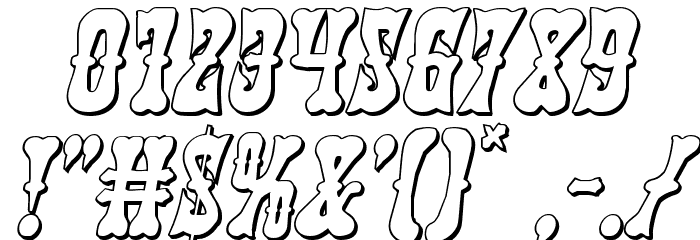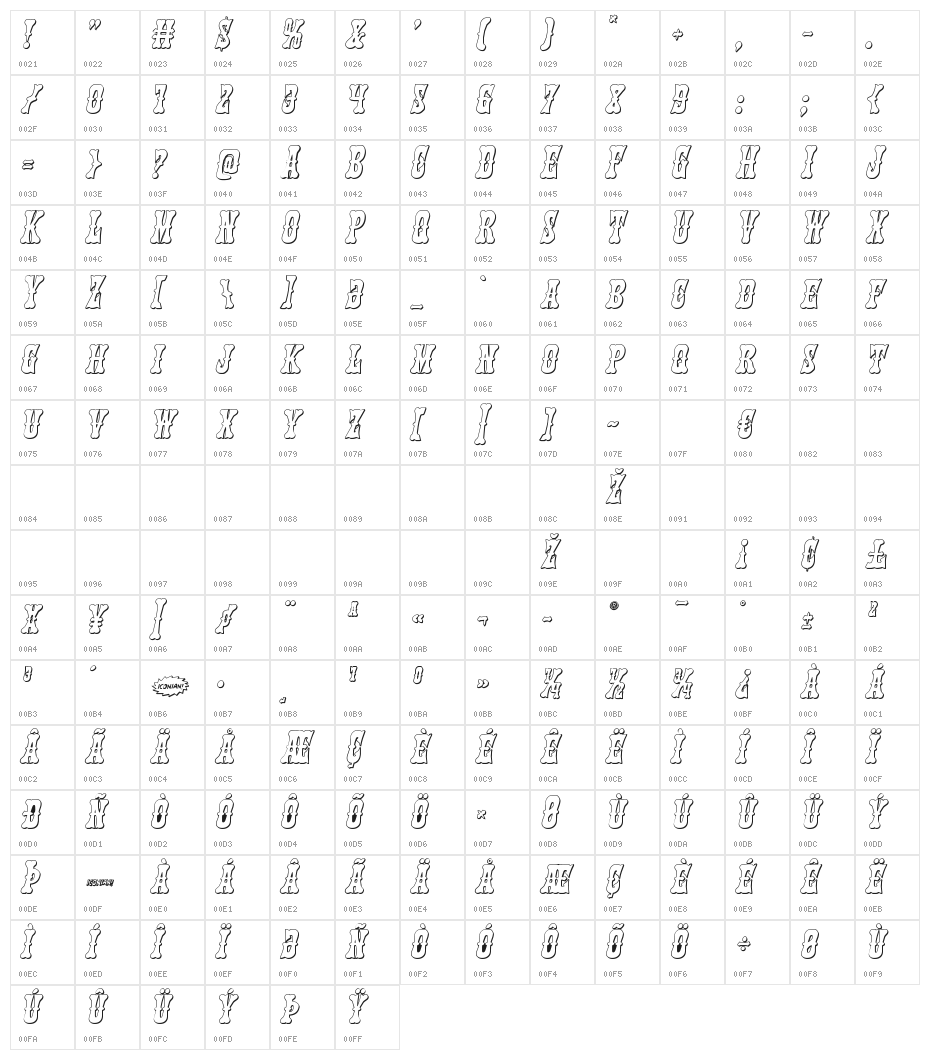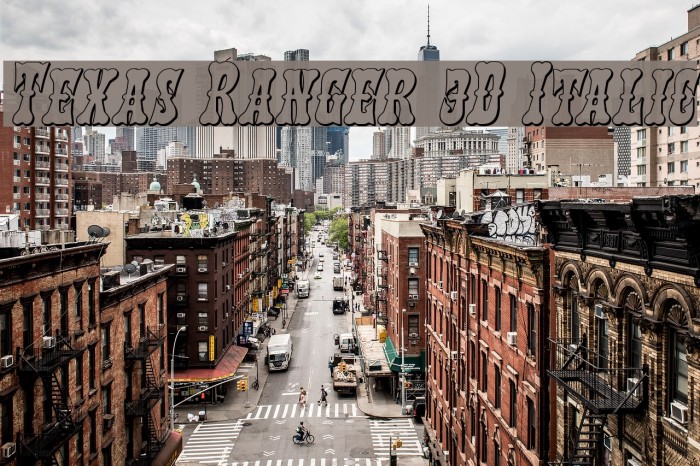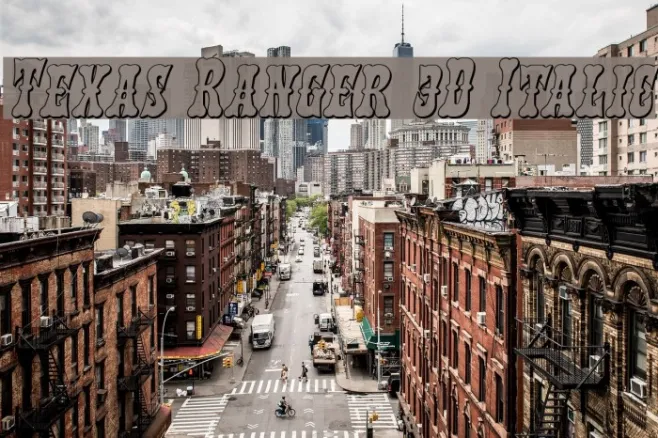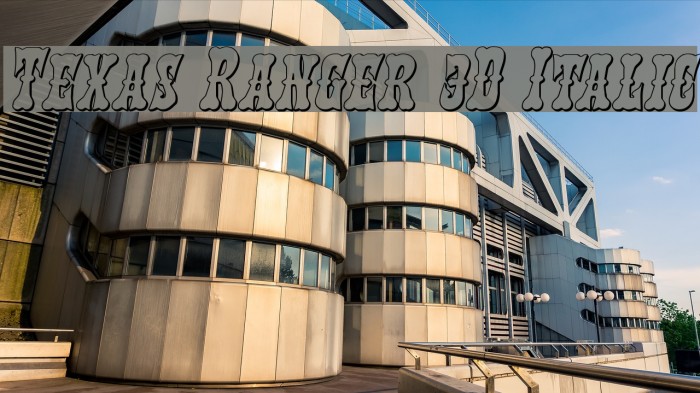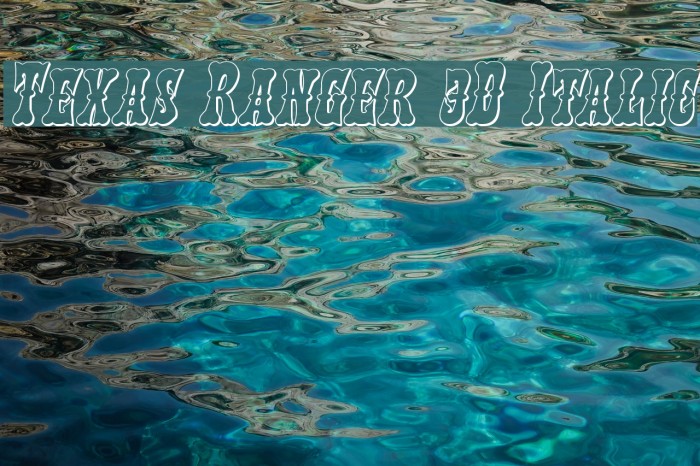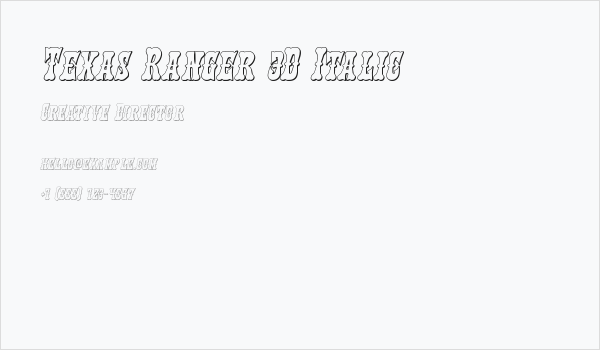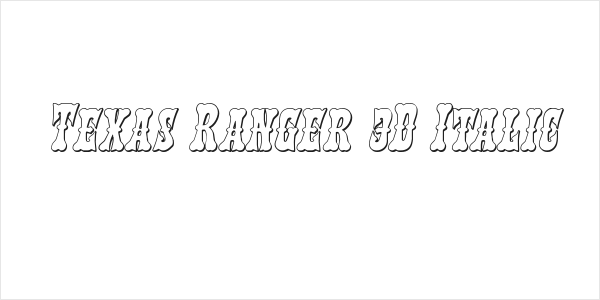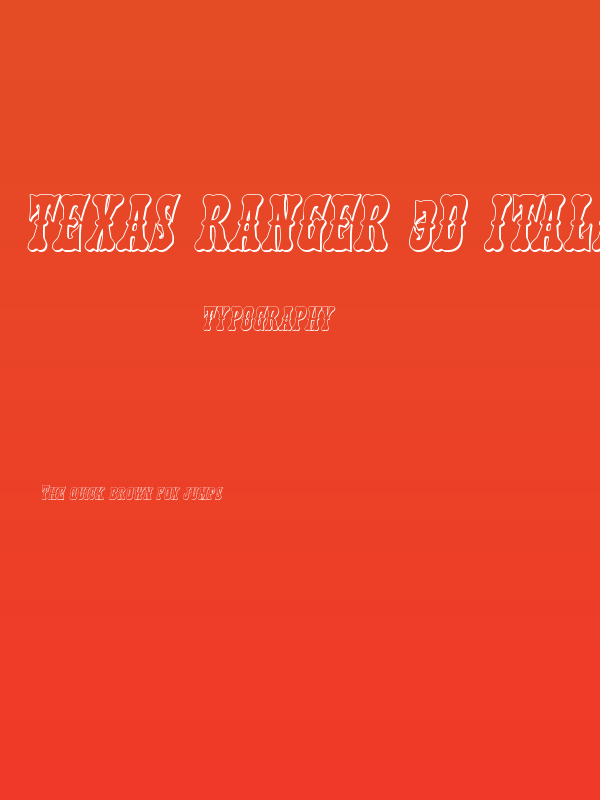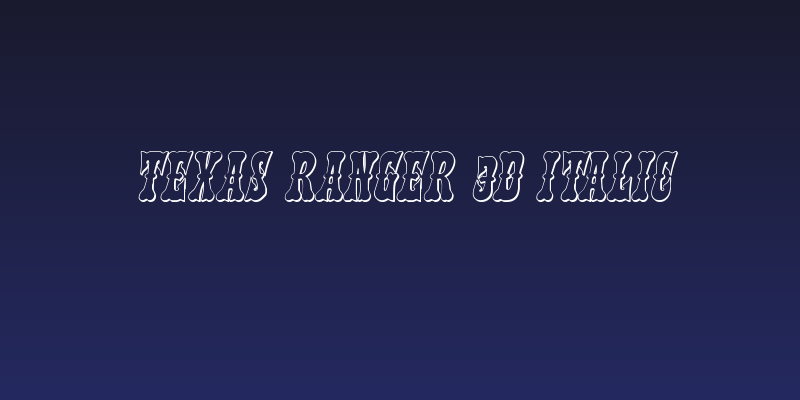
Texas Ranger 3D Italic Font
Texas Ranger 3D Italic Description
This font features a bold, three-dimensional design with a playful and dynamic appearance. The letters are outlined, giving them a shadowed effect that enhances their 3D look. Each character is slightly slanted, adding an italicized flair that contributes to its energetic style. The font is characterized by its thick strokes and rounded edges, which provide a sense of robustness and approachability. The spacing between characters is moderate, ensuring readability while maintaining its decorative appeal. This font is ideal for projects that require a bold statement or a fun, engaging visual element.
Proposed ProjectsIdeal for posters, logos, children's book covers, and any design needing a bold, fun aesthetic.